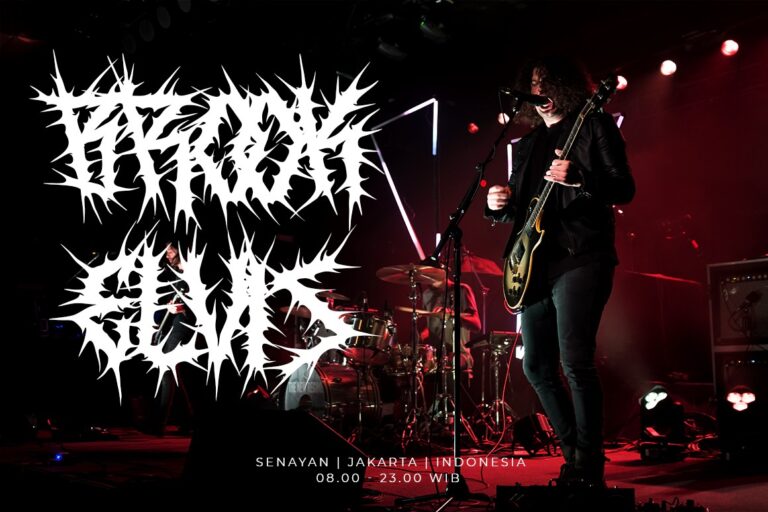
Best Fonts for Music Covers: Top 10 Typography Picks for Album Art, Branding & Packaging
Typography has long been a powerful force in music culture. From psychedelic rock posters in the 60s to punk zines of the 80s and the edgy digital covers of today, font choices…
Typography has long been a powerful force in music culture. From psychedelic rock posters in the 60s to punk zines of the 80s and the edgy digital covers of today, font choices shape the soul of music branding. Whether you’re designing an album cover, tour poster, or packaging for a vinyl reissue, selecting the right typeface is as crucial as the tracklist itself.
In this article, we explore the 10 best fonts for music covers, branding, and packaging—curated from Putracetol Studio’s collection. These fonts range from wild and distorted punk styles to ornate blackletter and futuristic psychedelia, offering a typographic experience that resonates with your genre, energy, and message.
🎤 What Makes a Font Perfect for Music Branding?
Music typography needs to reflect sound in visual form. It should evoke the genre, attitude, and tone of the artist. Bold fonts speak to loud genres. Hand-drawn styles appeal to indie authenticity. Blackletter fonts channel gothic or metal vibes. And retro fonts hint at throwback nostalgia. Good typography makes a cover unforgettable.
🎧 Top 10 Best Fonts for Music Covers & Albums
1. Euphoria Party
A vibrant and energetic font that fits perfectly with pop, electronic, or dance music artwork. The rounded letterforms and quirky attitude scream party vibes and fun-loving aesthetics.
2. Mind Explorer
This psychedelic typeface takes you on a visual trip. Perfect for psych-rock bands or alternative album artwork, it mimics the surreal essence of mind-bending visuals and retro vibes.
3. Rose Thorns
Dark, romantic, and rebellious. This font blends beauty and danger, ideal for punk, darkwave, or post-rock bands that explore raw emotion in both lyrics and design.
4. Imperial Black
For fans of gothic metal, black metal, or symphonic rock, this blackletter typeface exudes power and historic flair. Its intricate strokes make it perfect for dramatic band logos and merchandise.
5. Nekros
Brutal, aggressive, and intense—Nekros is made for metal bands. Its sharp angles and horror-inspired look make it suitable for deathcore, doom metal, and extreme genres.
6. Necrotic
A heavy metal dream font with monstrous proportions. This one’s perfect for album titles, stage backdrops, and merch for underground or hardcore music scenes.
7. Funky Velvet
This font oozes 70s vibes. Use it for vintage-style posters, psych-pop branding, or indie album covers. It’s bold, stylish, and full of character—like a record crate find.
8. Spooky Punk
Inspired by underground punk zines, this jagged and raw typeface is perfect for hardcore punk bands, grunge releases, or rebellious branding.
9. Wasted Punk
Dirty, bold, and aggressive—this font belongs on DIY gig flyers and cassette covers. It’s an ideal companion to distorted guitar riffs and angst-ridden lyrics.
10. Roost Punk
Channeling rebellion and chaos, Roost Punk is energetic and untamed. It thrives in anarchic, collage-style designs and visual noise aesthetics.
❓ Why Fonts Matter in Music
Typography isn’t decoration—it’s identity. It’s how your fans see you before they hear you. Choosing the right font sets the tone, grabs attention, and creates lasting impressions. These fonts from Putracetol aren’t just letters; they’re a sonic fingerprint.